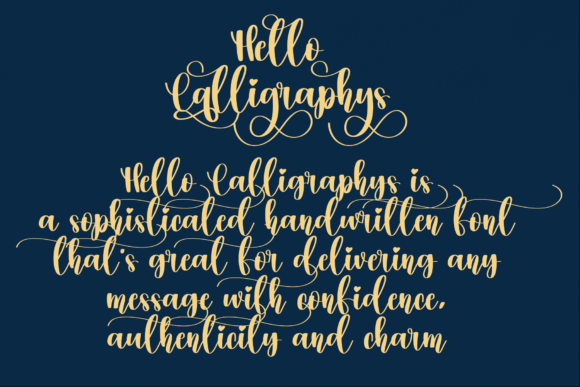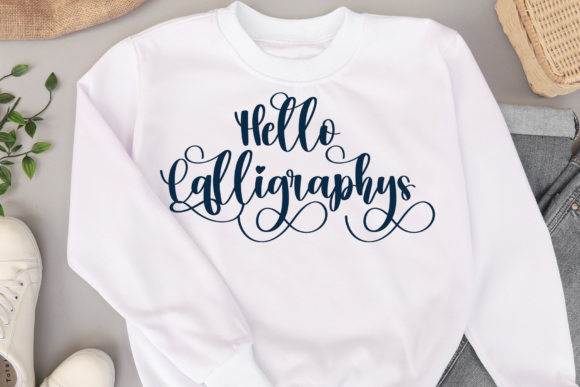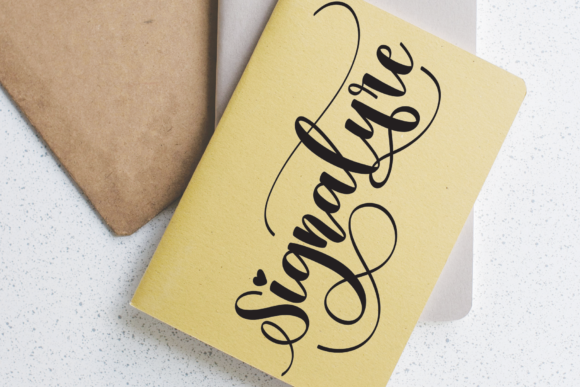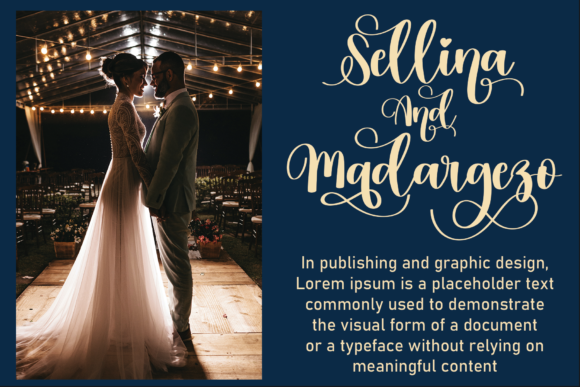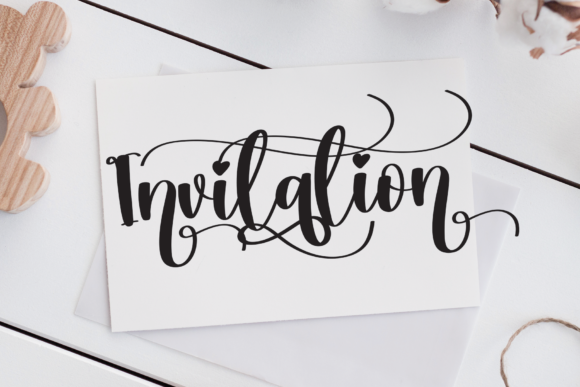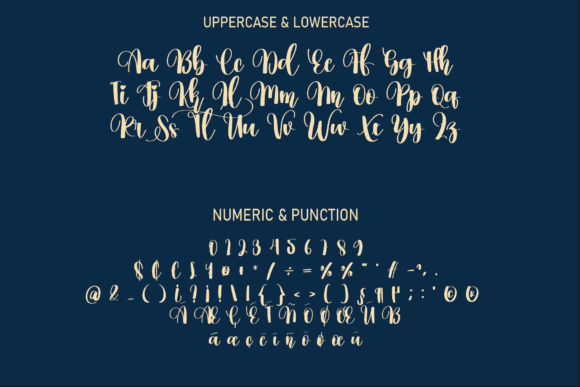
Hello Calligraphys Font: Elevate Your Designs with Elegance and Class
Are you a designer or crafter looking for a font that exudes elegance and sophistication? Look no further than Hello Calligraphys, a lovely and delicate script font that’s perfect for adding a touch of class to your designs. In this article, we’ll explore the features and benefits of Hello Calligraphys, and show you how it can elevate your designs to the next level.
A Font Fit for Royalty: Hello Calligraphys
Hello Calligraphys is a stunning script font that’s designed to make your designs stand out. Its delicate lines and elegant curves make it perfect for a variety of applications, from wedding invitations and thank you cards to quotes, greeting cards, logos, and business cards. Whether you’re a professional designer or a crafty DIY enthusiast, Hello Calligraphys is sure to impress.
What Makes Hello Calligraphys So Special?
So, what sets Hello Calligraphys apart from other fonts? For starters, it’s a PUA (Private Use Area) encoded font, which means you can access all of the glyphs and swashes with ease. This makes it incredibly easy to customize your designs and add your own personal touch. With Hello Calligraphys, you can create beautiful, one-of-a-kind designs that reflect your unique style and vision.
Wedding invitations, save-the-dates, and thank you cards are just a few examples of the many ways you can use Hello Calligraphys to add a touch of elegance to your event designs. This font is specifically designed to make your wedding and event designs look stunning, with a delicate and sophisticated look that’s sure to impress your guests.
Hello Calligraphys is a versatile font that can be used for a wide range of design projects, including:
- Wedding invitations and save-the-dates
- Thank you cards and greeting cards
- Quotes and posters
- Business cards and stationery
- DIY crafts and scrapbooking
Why Choose Hello Calligraphys?
With so many fonts to choose from, why should you choose Hello Calligraphys? Here are just a few reasons why this font stands out:
- Elegant and sophisticated design
- PUA encoded for easy customization
- Perfect for wedding and event designs
- Unique and eye-catching
Tips for Using Hello Calligraphys
To get the most out of Hello Calligraphys, here are a few tips to keep in mind:
- Use it sparingly: Hello Calligraphys is a statement font, so use it sparingly to add emphasis and elegance to your designs.
- Pair it with other fonts: Hello Calligraphys looks great paired with other fonts, such as sans-serif fonts or serif fonts.
- Experiment with colors: Hello Calligraphys looks great in a variety of colors, from soft pastels to rich jewel tones.
- Don’t be afraid to get creative: With Hello Calligraphys, the possibilities are endless, so don’t be afraid to get creative and try new things!
Hello Calligraphys is a stunning script font that’s perfect for designers and crafters looking to add a touch of elegance and sophistication to their designs. With its delicate lines, elegant curves, and PUA encoding, this font is sure to impress. Whether you’re designing wedding invitations, greeting cards, or logos, Hello Calligraphys is the perfect choice. So why wait? Download Hello Calligraphys today and start creating beautiful, one-of-a-kind designs that reflect your unique style and vision.